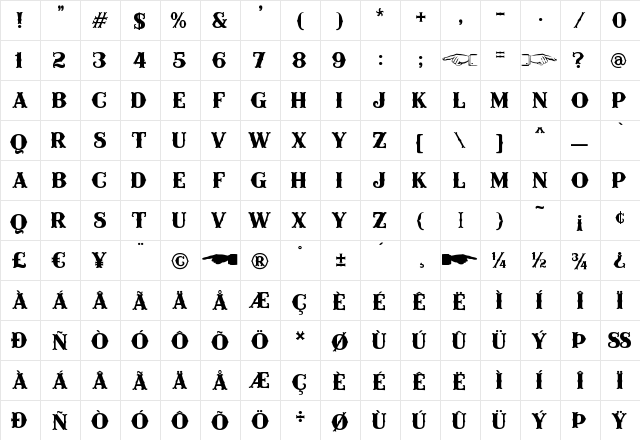
Miss Scarlett Plain Regular
| Designer | Michael Hagemann |
Design Context for Miss Scarlett Plain Typeface
Miss Scarlett Plain is a composed and adaptable typeface that performs quietly and consistently across a wide range of design contexts.